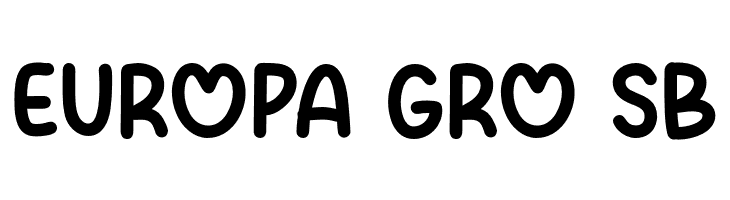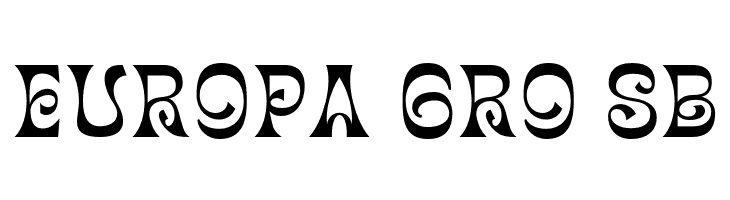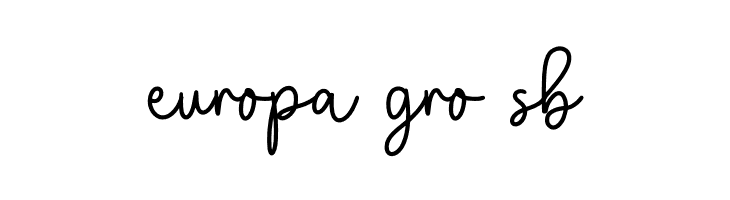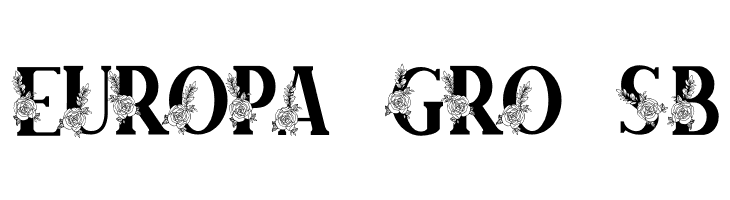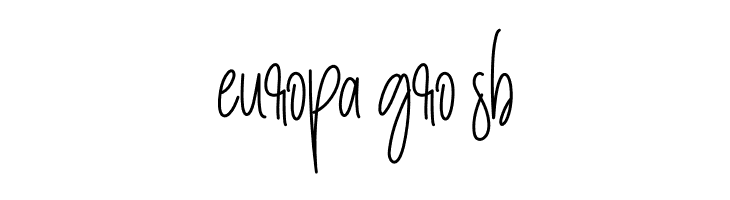
A playful, rounded font with smooth curves and a friendly appearance.
( Fonts by Letterhend Studio )
A bold, decorative font with intricate curves and high contrast.
( Fonts by Makashi )
A bold, playful font with rounded, whimsical strokes.
( Fonts by Makashi )
A playful, handwritten font with a whimsical and casual style.
( Fonts by Mozatype )
An elegant serif font with intricate floral embellishments, perfect for decorative use.
( Fonts by Hawtpixel )
A playful, bold, and slightly italicized handwritten font with unique, fun elements.
( Fonts by Hawtpixel )
A playful, bold font with rounded, cartoonish characters.
( Fonts by Edignwn Type )
A bold, angular serif font with a dynamic and commanding presence.
( Fonts by Goodrichees )
A whimsical, eerie font with jagged edges and playful curls, perfect for Halloween themes.
( Fonts by Scratchones )
A playful, handwritten font with tall, narrow letters and a casual style.